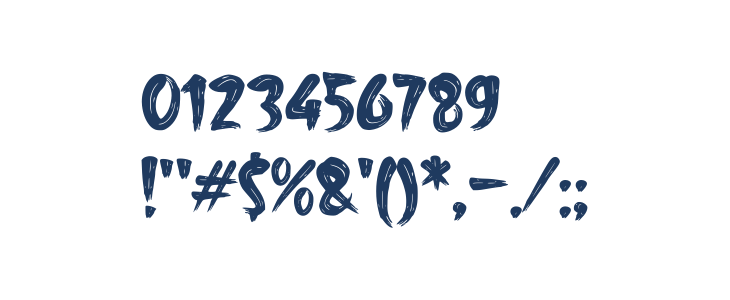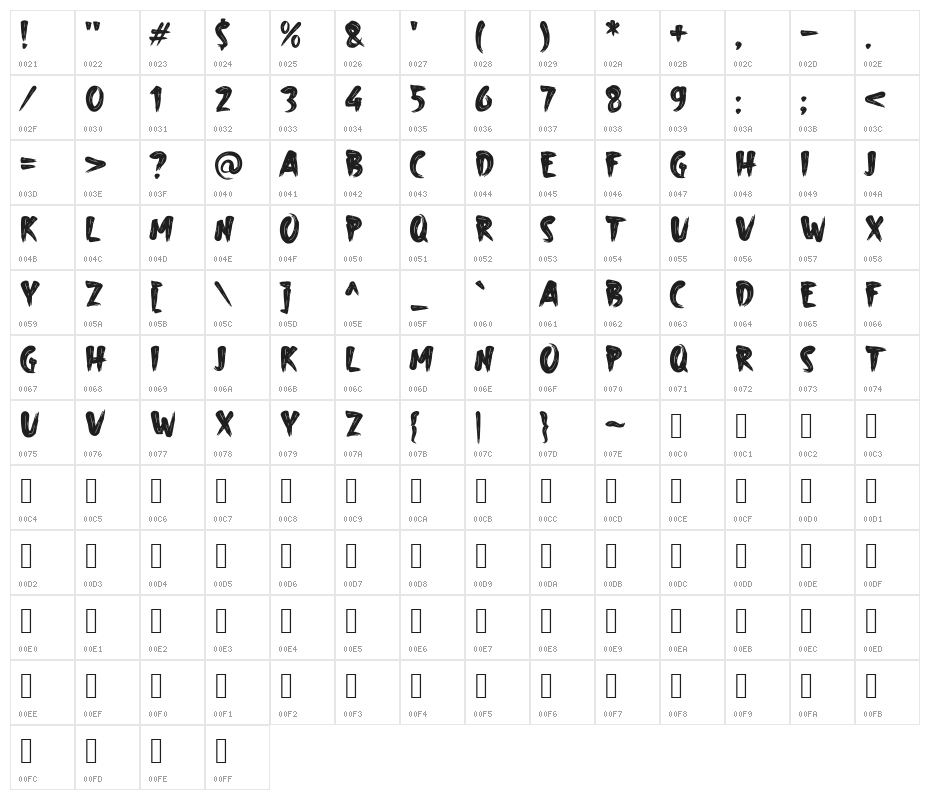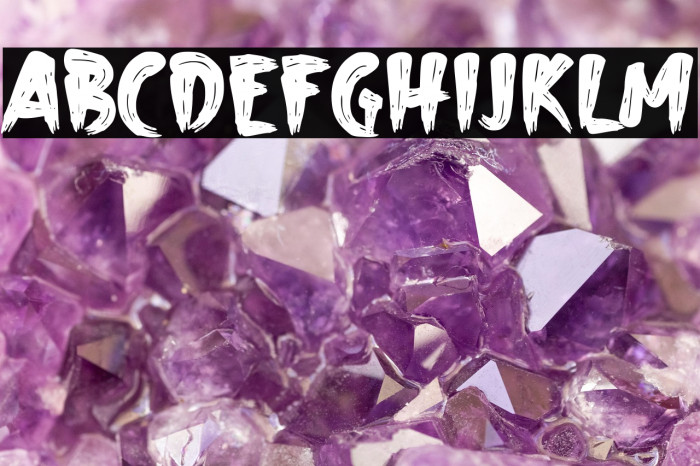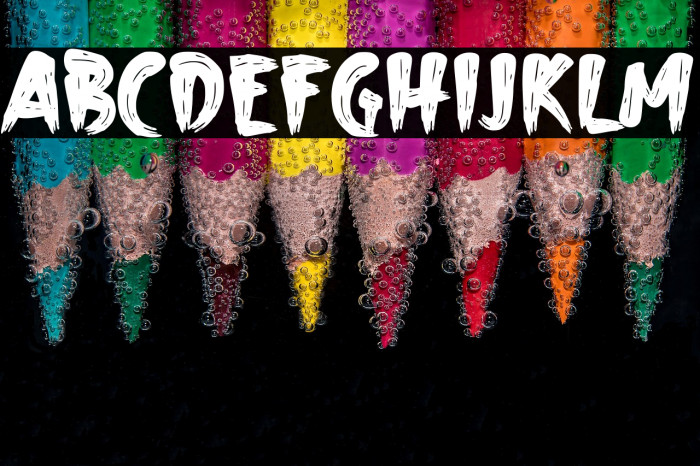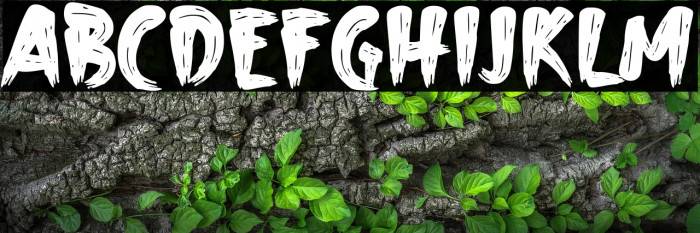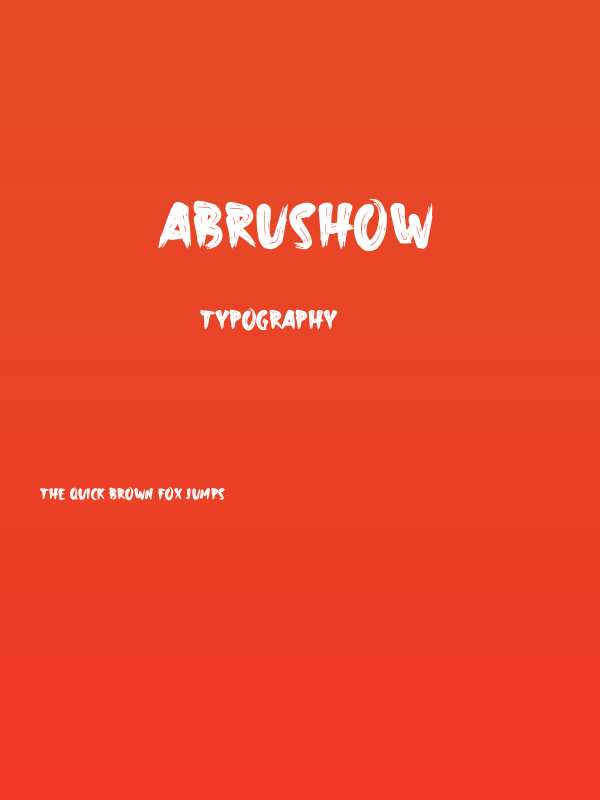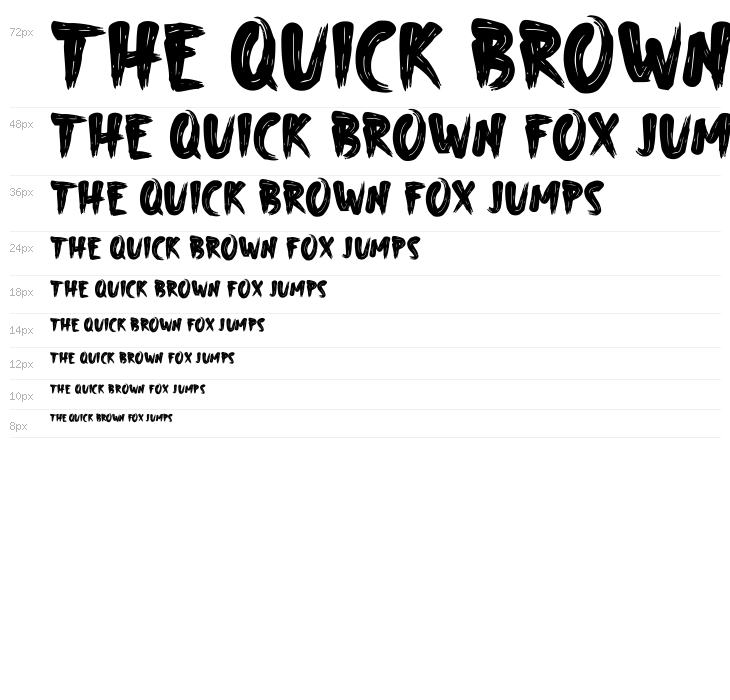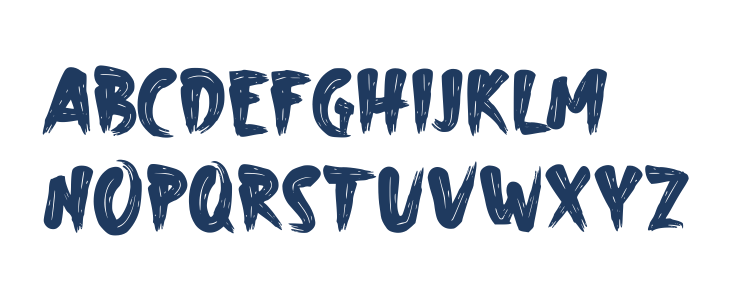
Abrushow Font
Abrushow Description
This font features a bold and expressive brush style, characterized by its dynamic and energetic strokes. Each letter appears as if it has been painted with a thick brush, giving it a raw and artistic feel. The strokes are uneven, adding a sense of movement and spontaneity. The font maintains a consistent weight throughout, with a slightly condensed width that enhances its bold appearance. The character spacing is tight, which contributes to its impactful and cohesive look. This font is ideal for projects that require a strong visual statement, such as posters, headlines, and branding materials.